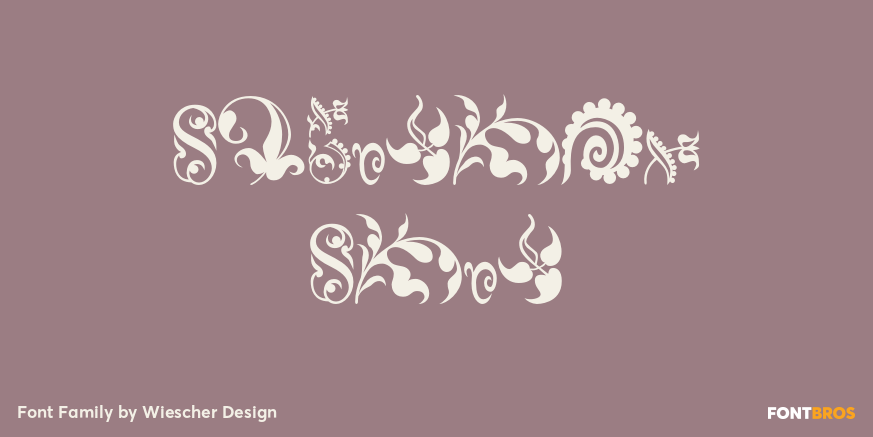
Fleurons Four
Fleurons are embellishments and here is my fourth round. I found some nice old ones and made some new. These go very well with my scripts Nadine and Ellida!!! Yours once more in a beautiful mood, Gert Wiescher